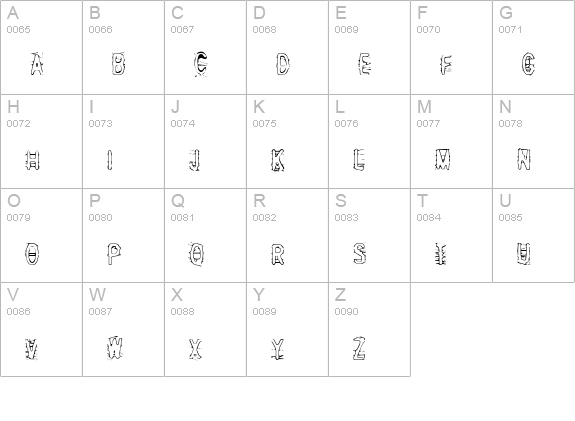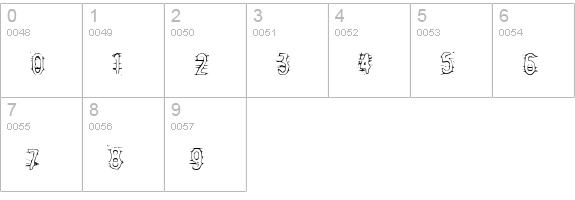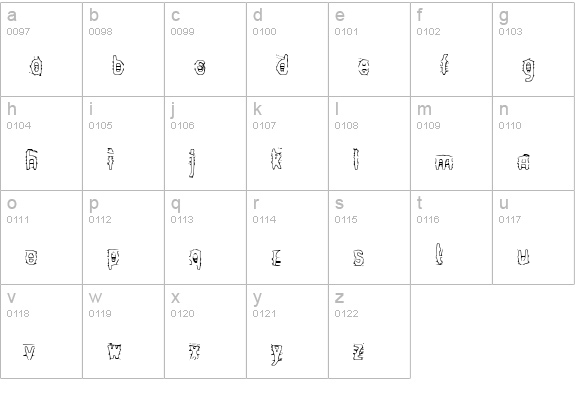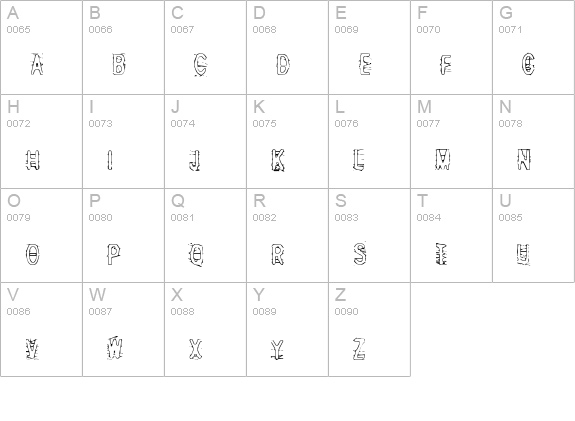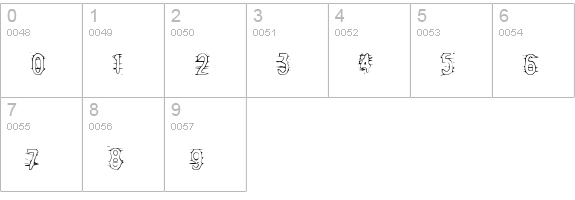
Angry bitch Font Details
Introducing the fierce and bold Angry Bitch font, designed for those who want to make a statement with their typography. This edgy font features sharp angles and strong lines, perfect for adding a touch of attitude to your designs. What's even better is that Angry Bitch font is available for free download at FontsMarket.com. Embrace the power of this unique typeface and let your creativity run wild with this striking font that demands attention. Ideal for posters, logos, and any design project that calls for a touch of boldness, Angry Bitch font is sure to make your message stand out. Download it now and unleash your inner rebel with this free and captivating font.